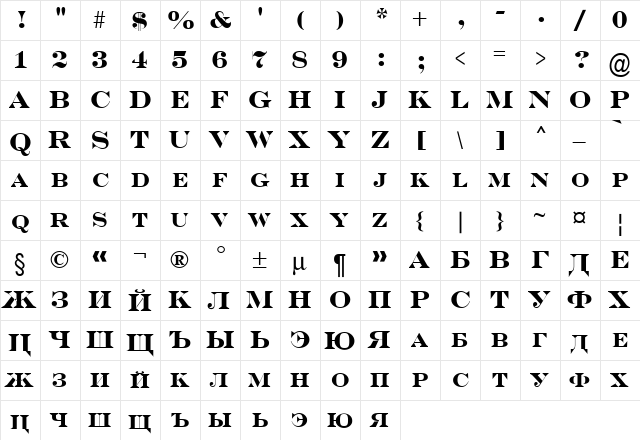
a_SeriferCps Bold
Design Context for a_SeriferCps Typeface
a_SeriferCps brings classic typographic sensibility to the table — its serifs and measured letterforms reflect centuries of print heritage. The heavy weight commands attention and anchors typographic hierarchies.
Pro Tip: Use a_SeriferCps for editorial body copy and considered headline work. Pair with a neutral sans for UI elements or captions to create a classic hierarchy.